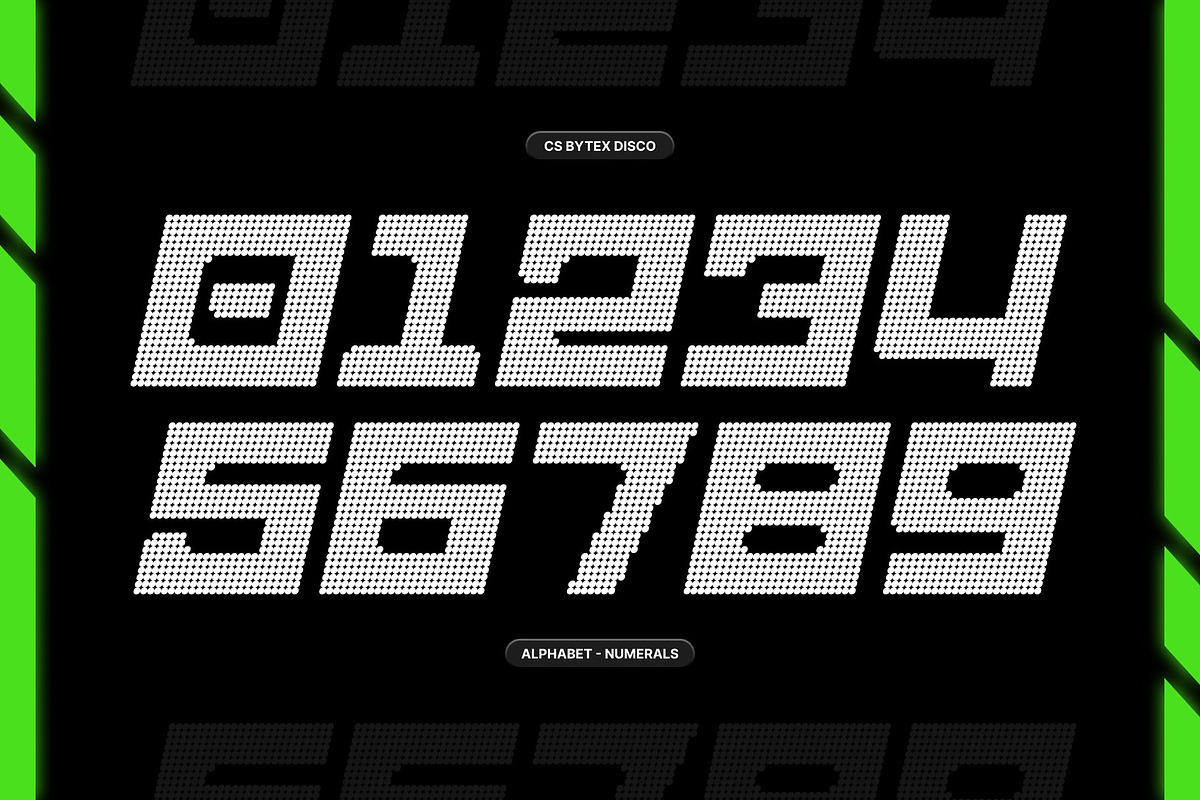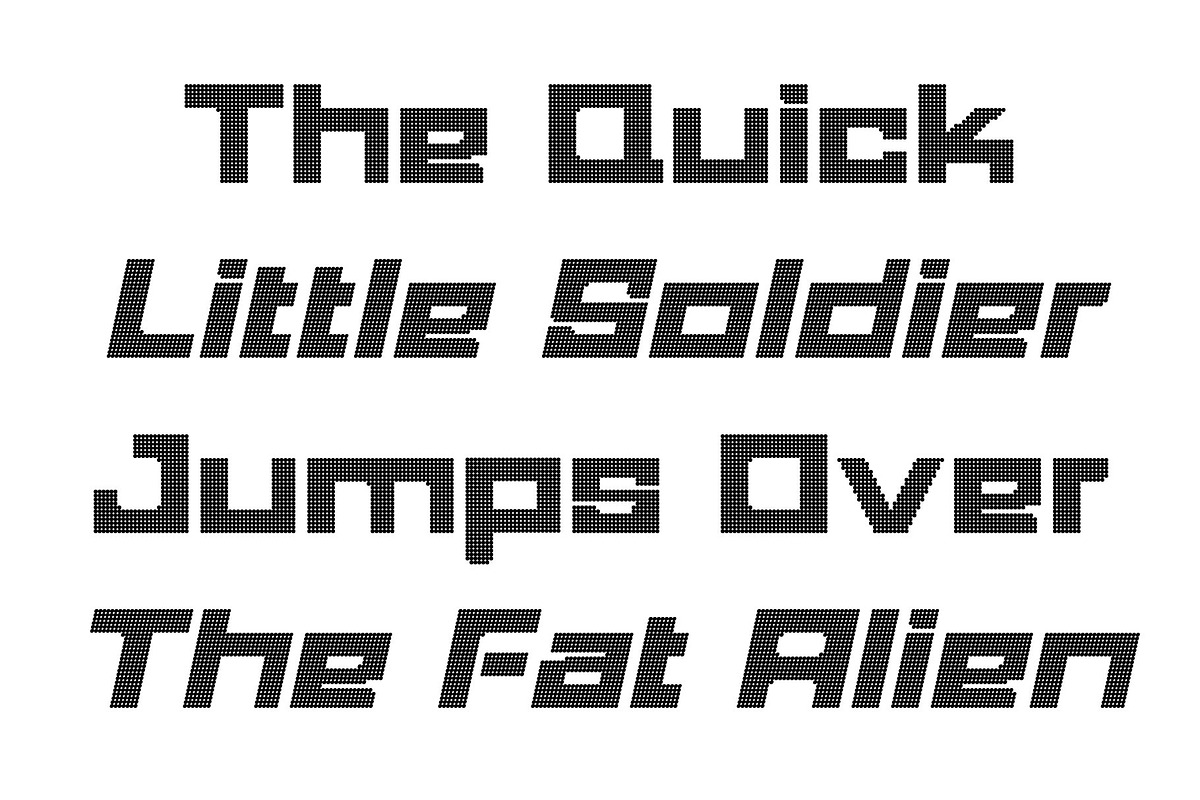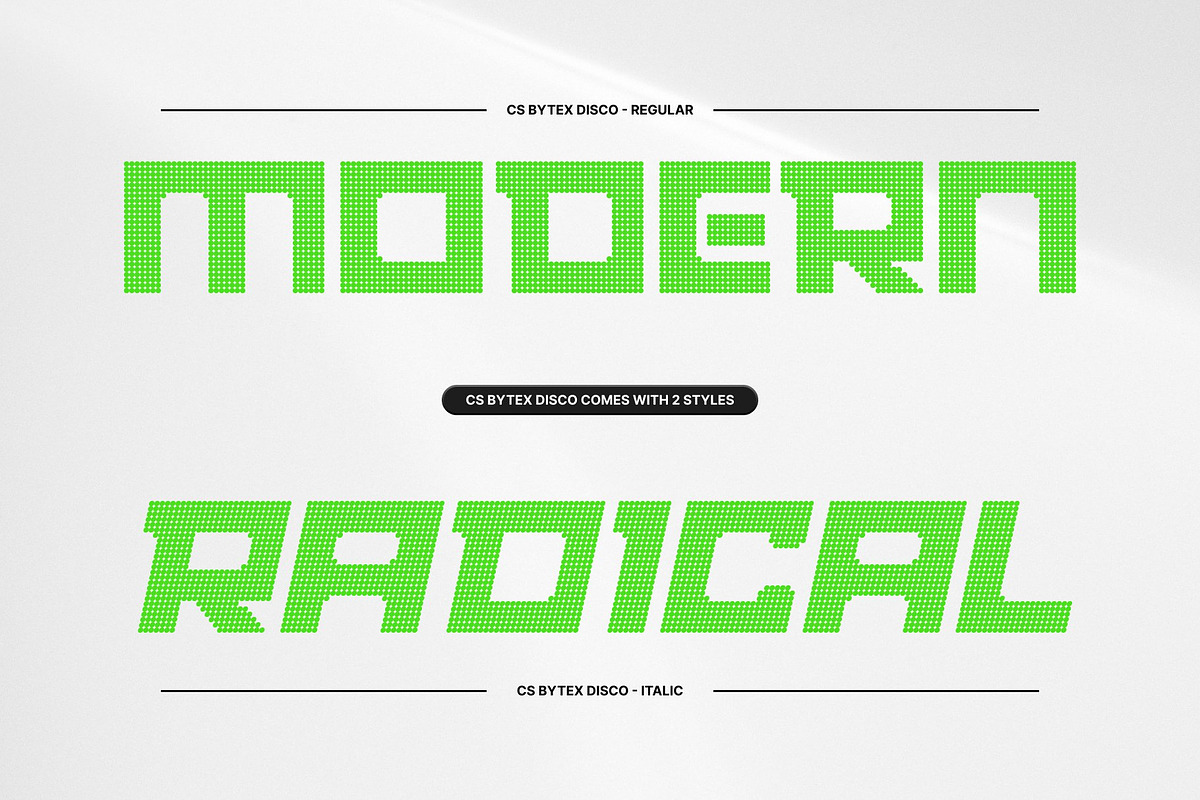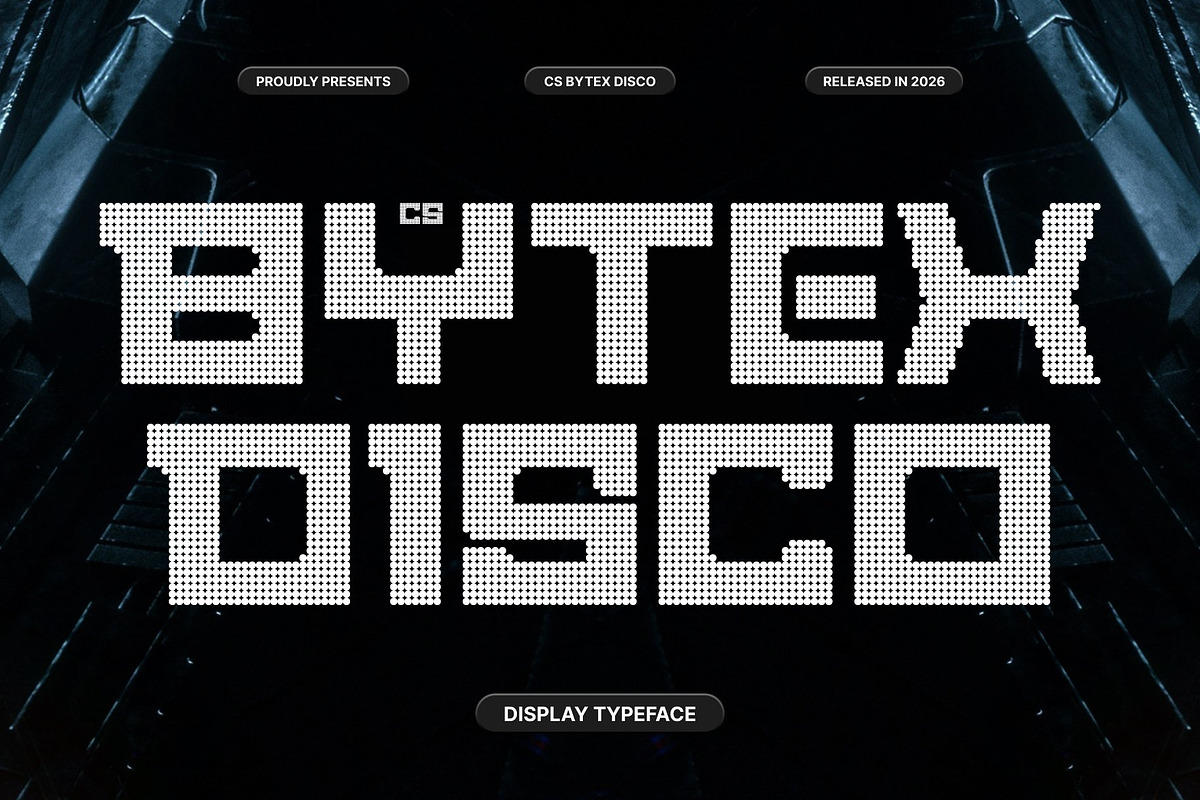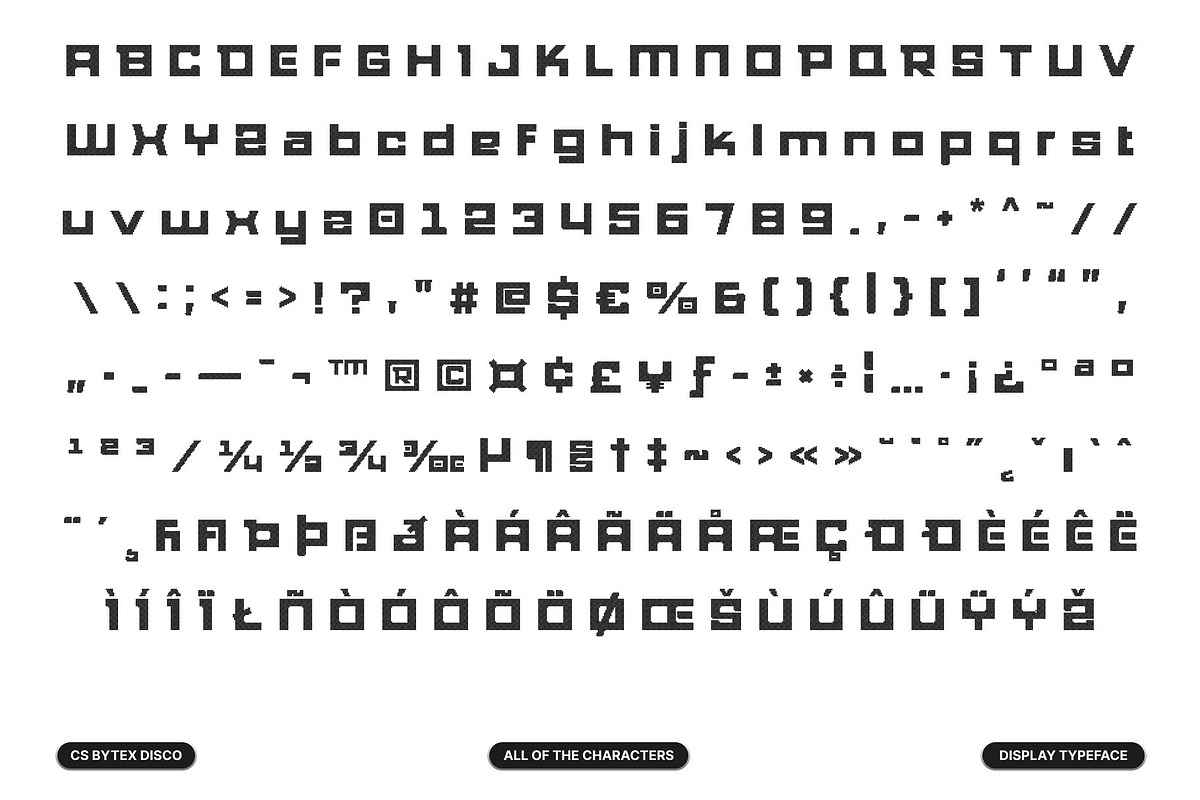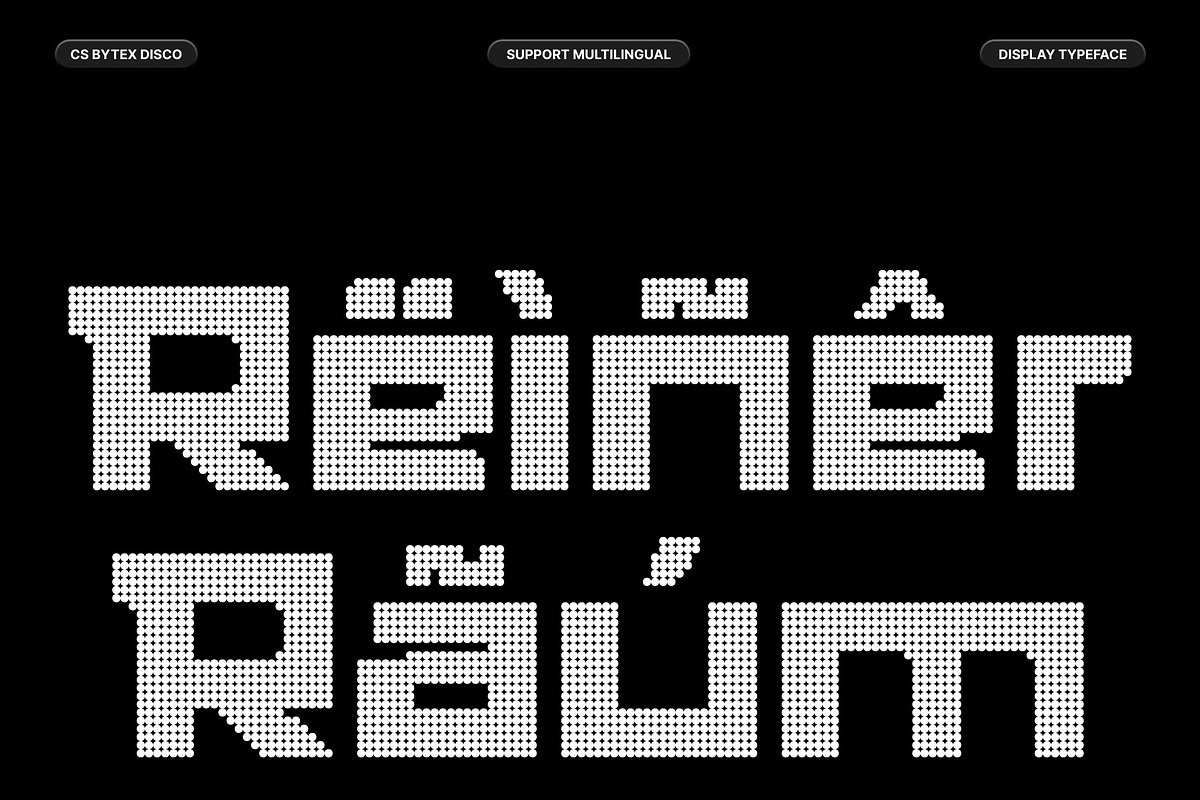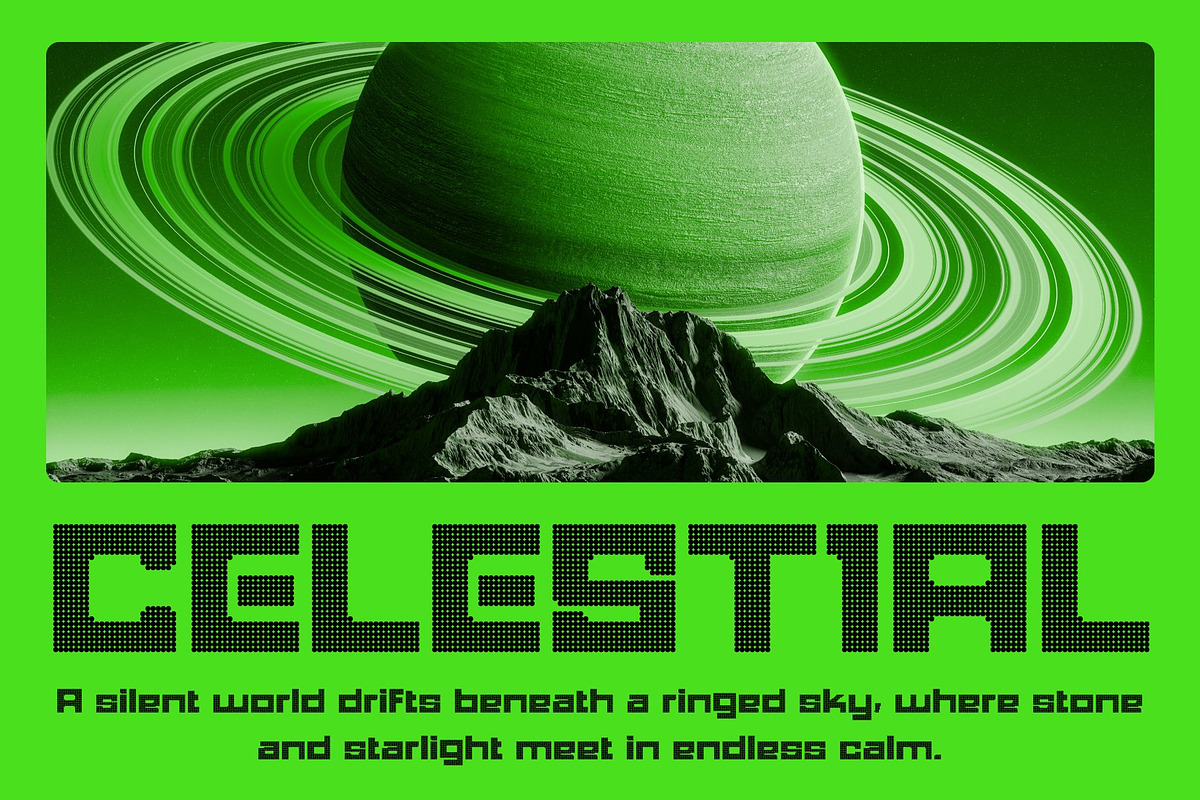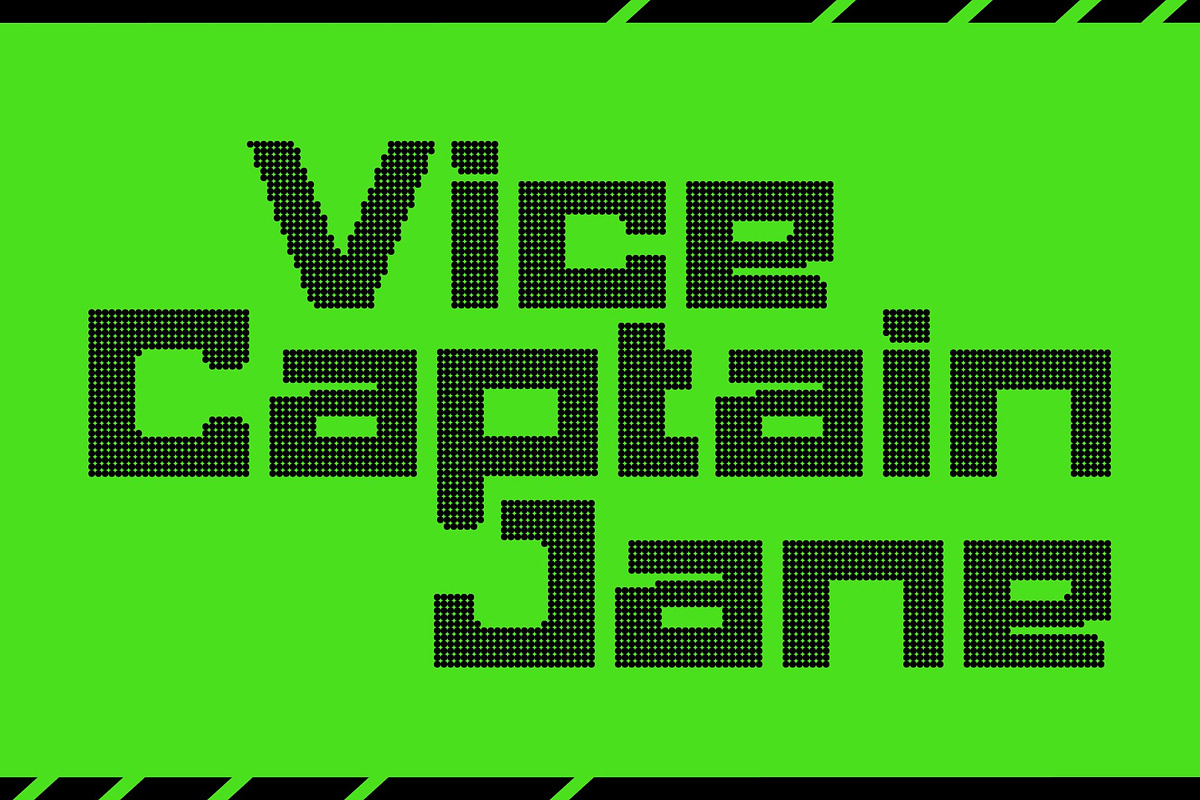
CS Bytex Disco
CS Bytex Disco – Bold Digital Power with Futuristic Disco Energy
Techno-Inspired Sans Serif with Modern Precision This is a bold sans serif font that captures the spirit of digital innovation and modern technology. Built on clean geometry, sharp edges, and confident structure, it delivers a powerful, futuristic presence. Every letterform feels precise and intentional, making the font ideal for bold, forward-looking design.
Striking Forms with Disco-Driven Futurism Carefully crafted letterforms balance strong structure with expressive style. Sharp contours and solid weight create a high-tech foundation, while subtle disco-inspired energy adds rhythm, glow, and visual excitement evoking neon lights, digital motion, and late-night cyber aesthetics.
Perfect for Branding, Tech, and Digital Campaigns This font excels in branding, logos, posters, and digital visuals that require a strong contemporary voice. It works especially well for technology companies, gaming brands, electronic music visuals, and futuristic campaigns, bringing clarity, authority, and energetic appeal to every composition.
Bold, Clean, and Unmistakably Modern More than just a typeface, this font is a visual statement of modern creativity. Its techno-inspired construction combined with vibrant disco flair ensures standout performance across print and digital media empowering designs with precision, confidence, and futuristic energy.
- CS Bytex Disco Regular
- CS Bytex Disco Italic